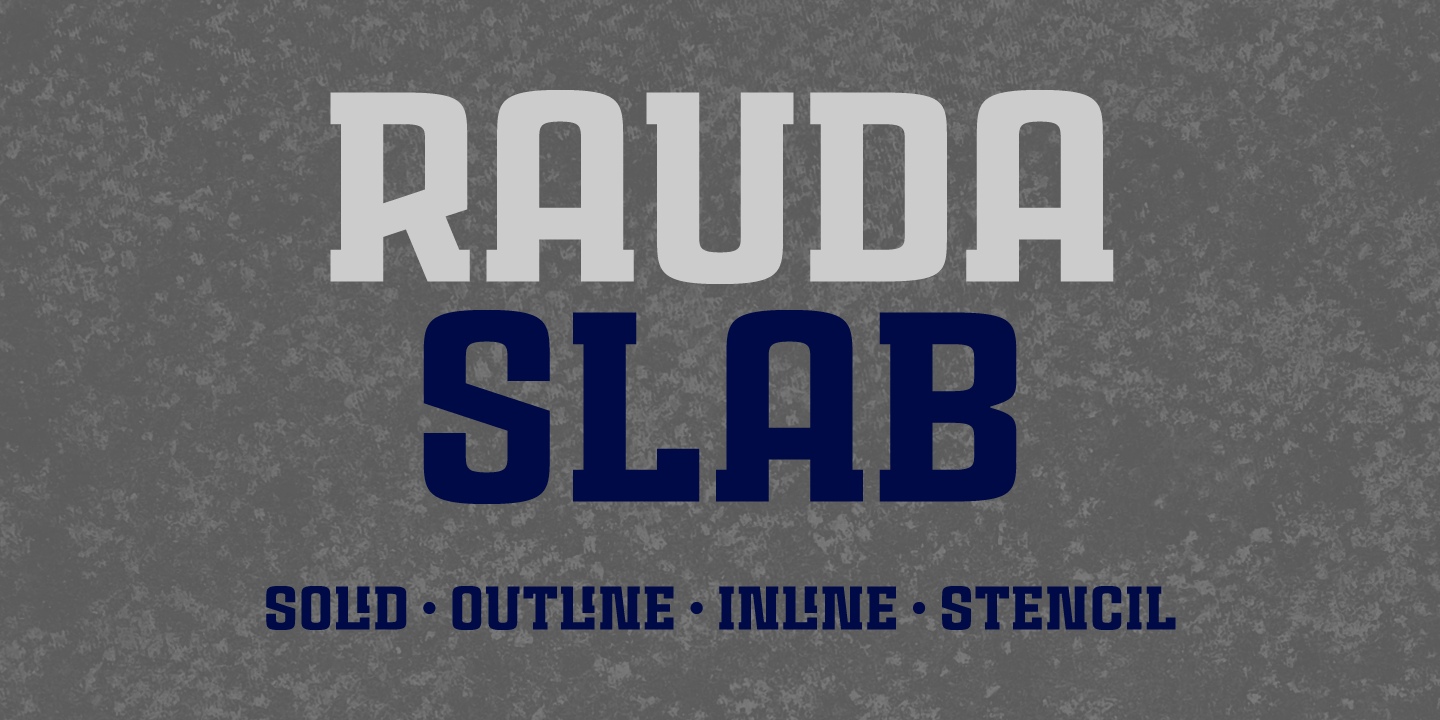
Rauda Slab Font
Rauda Slab Font is perfect for rugged outdoor brands, robust construction companies, strong industrial organizations, sturdy manufacturing firms, reliable engineering services, and dependable professional platforms. Its solid character makes it ideal for heavy-duty equipment manufacturers, robust building materials, strong security services, sturdy furniture makers, reliable logistics companies, and any project requiring industrial strength with robust reliability and dependable durability appeal.
This font is exciting because it embodies unwavering strength and industrial reliability while delivering exceptional functionality for organizations built on foundations of durability, dependability, and the kind of robust performance that withstands the test of time and demanding conditions. The solidly crafted letterforms demonstrate structural integrity and engineering precision, creating typography that feels unbreakably strong and professionally dependable.
The Rauda Slab Font family typically includes Light, Regular, Medium, and Bold weights with industrial alternates, robust ligatures, and sturdy elements that enhance its dependable personality. This comprehensive collection enables industrial professionals to create authoritative brand systems that maintain structural credibility while offering flexibility for various robust applications requiring both strength authority and contemporary industrial market positioning.
Whether you're developing identity systems for construction companies, creating materials for industrial manufacturing services, or designing promotional content for heavy-duty professional organizations, Rauda Slab Font Free Download delivers the industrial strength and robust reliability that connects with audiences seeking dependable performance and sturdy professional services. Its solid presence ensures trustworthy brand recognition across digital platforms and print materials, making it perfect for websites, mobile applications, and industrial campaigns that celebrate structural integrity, robust performance, and the transformative power of dependable engineering with contemporary industrial standards and authentic sturdy excellence.